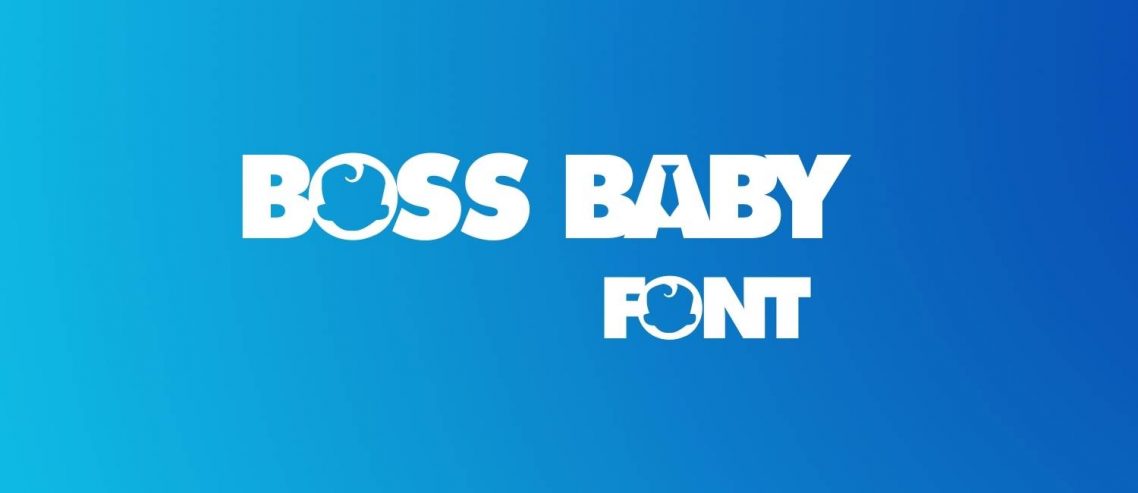
Boss Baby Font is a very aesthetic and lovely typeface. It is a sans serif font with thick, rounded letters. The font is perfect for creating cute, child-friendly designs.
The font was created by Emily Spadoni, a graphic designer from the United States. The font is inspired by her daughter’s boss baby toys. You can compare the damion font with this font to make something special and unique typeface.
Name | Boss Baby Font |
Designer | Emily Spadoni |
Style | Display |
Font Family
- Boss Baby regular